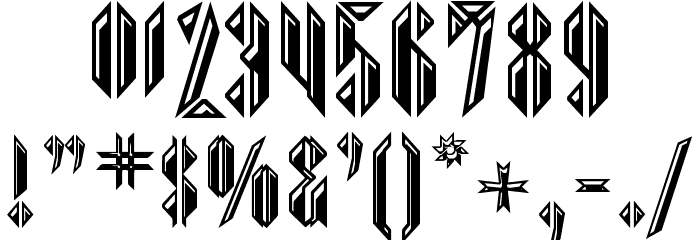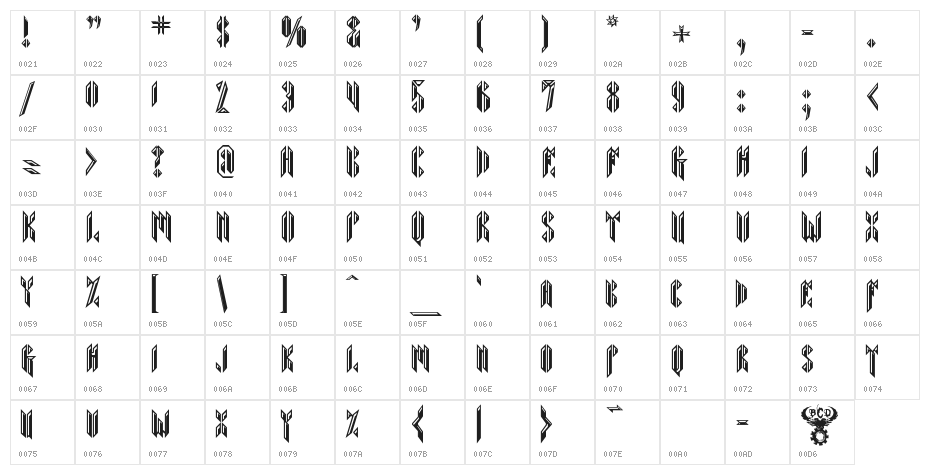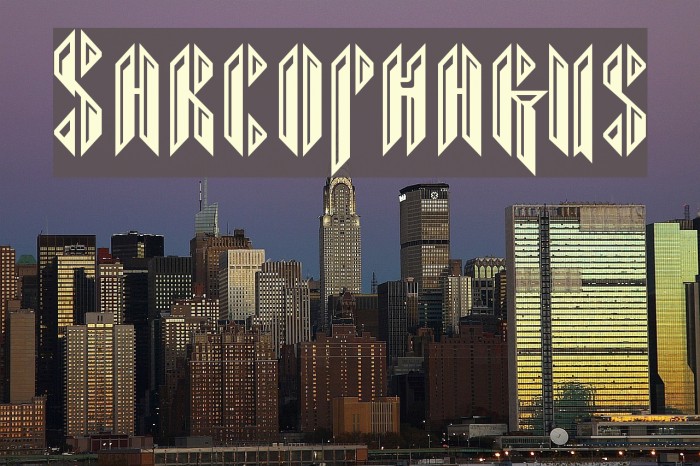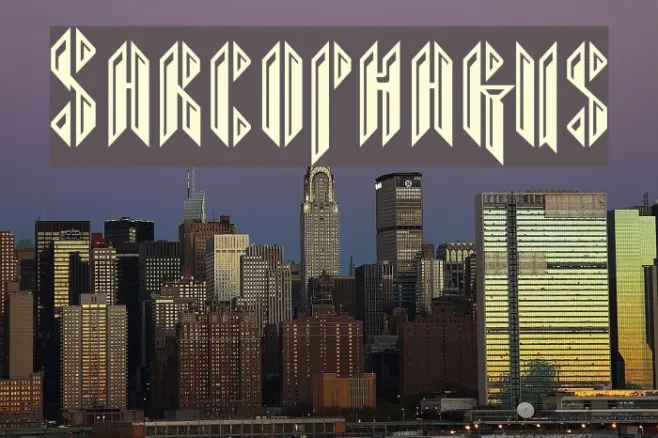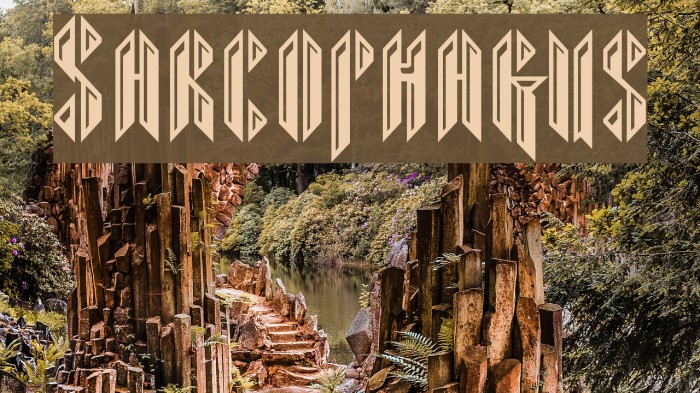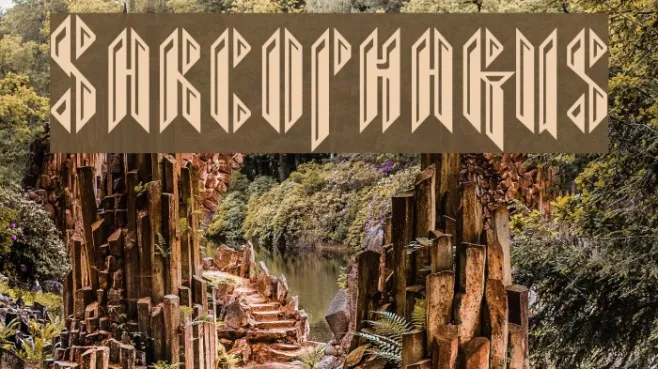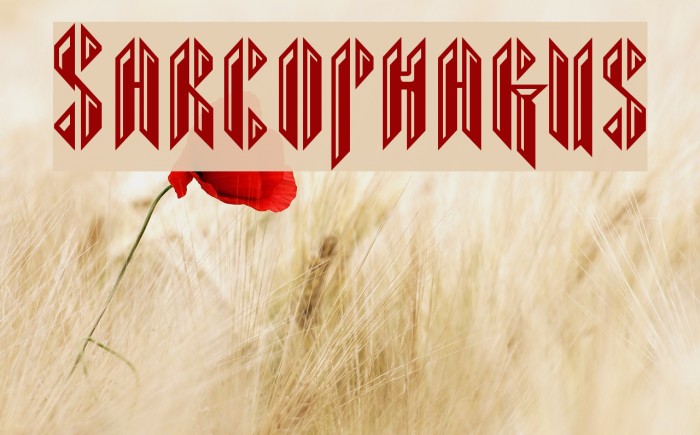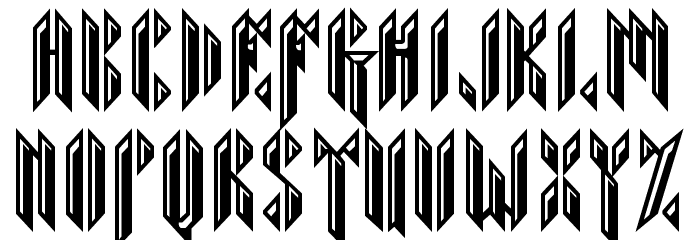
Sarcophagus Font
Sarcophagus Description
This font features a bold and striking design with a strong Gothic influence. The characters are sharply angular with a high contrast between thick and thin strokes, giving it a dramatic and imposing appearance. The uppercase letters are particularly elaborate, with intricate details that enhance the overall aesthetic. The lowercase letters maintain the same stylistic elements, ensuring consistency throughout. Numbers and special characters are designed to match the ornate style, making this font suitable for projects that require a bold statement.
| Overall Style | Gothic, Decorative |
| Proposed Projects | Ideal for use in branding, posters, album covers, and any project that requires a dramatic and eye-catching typeface. |